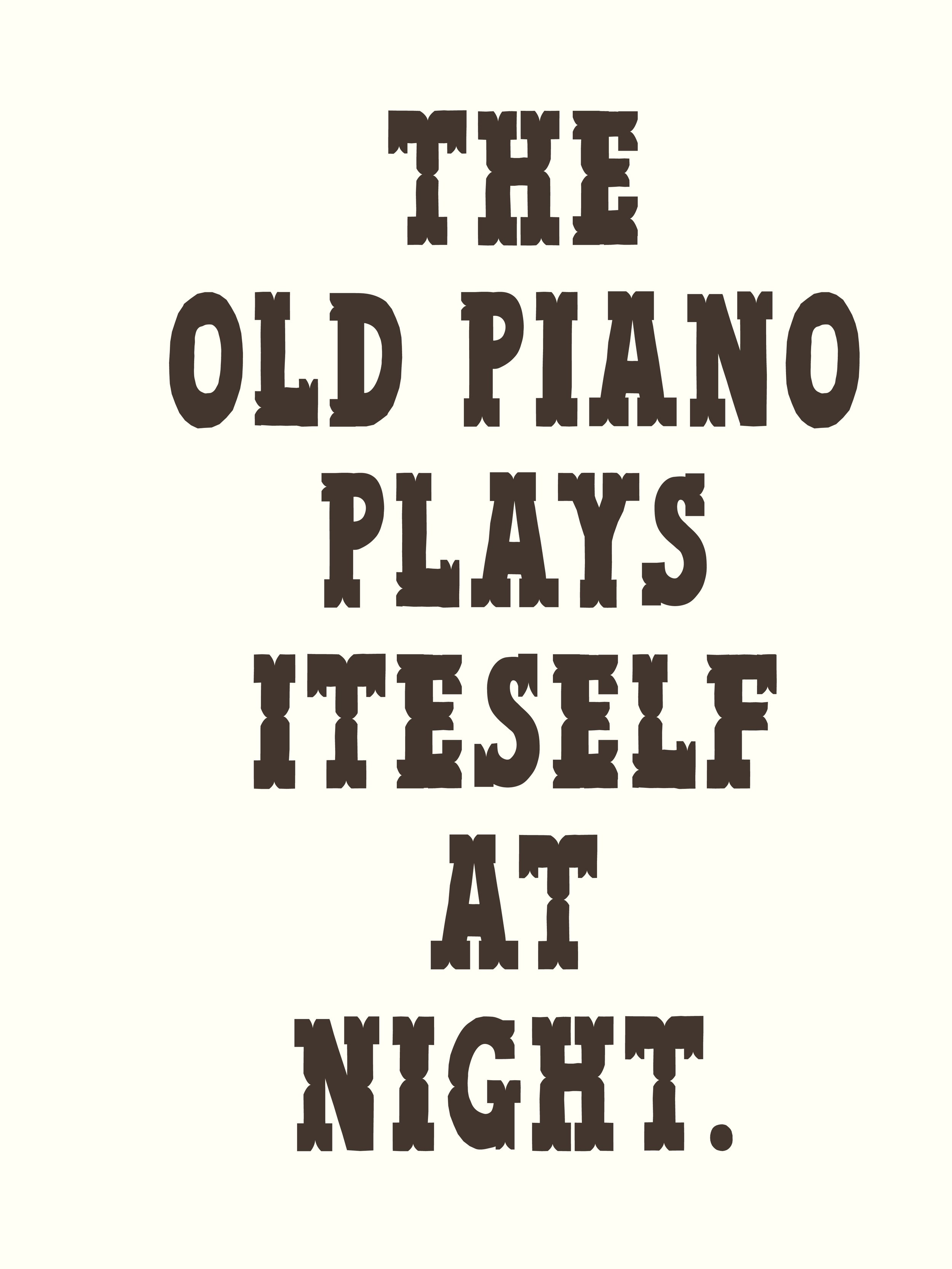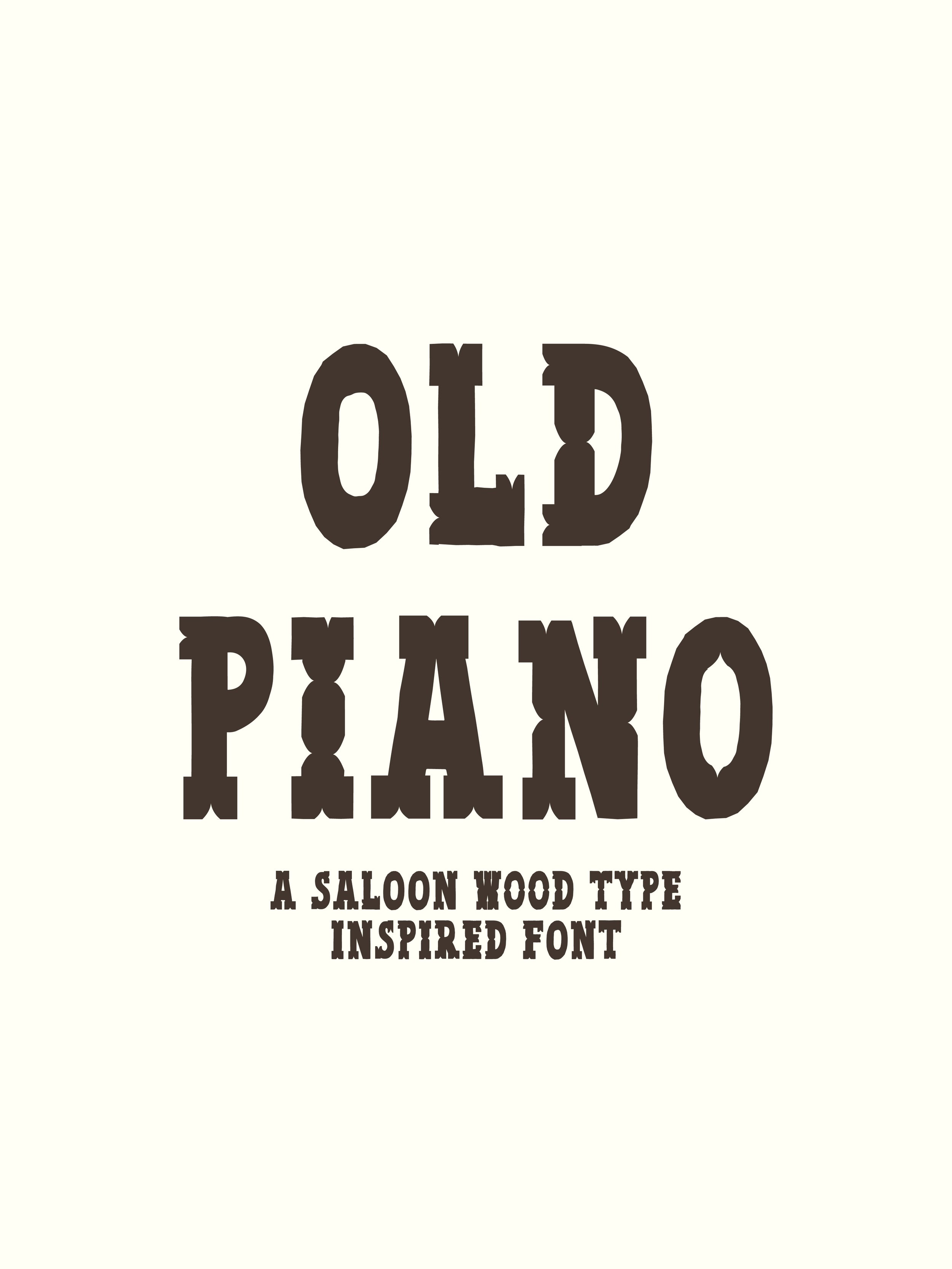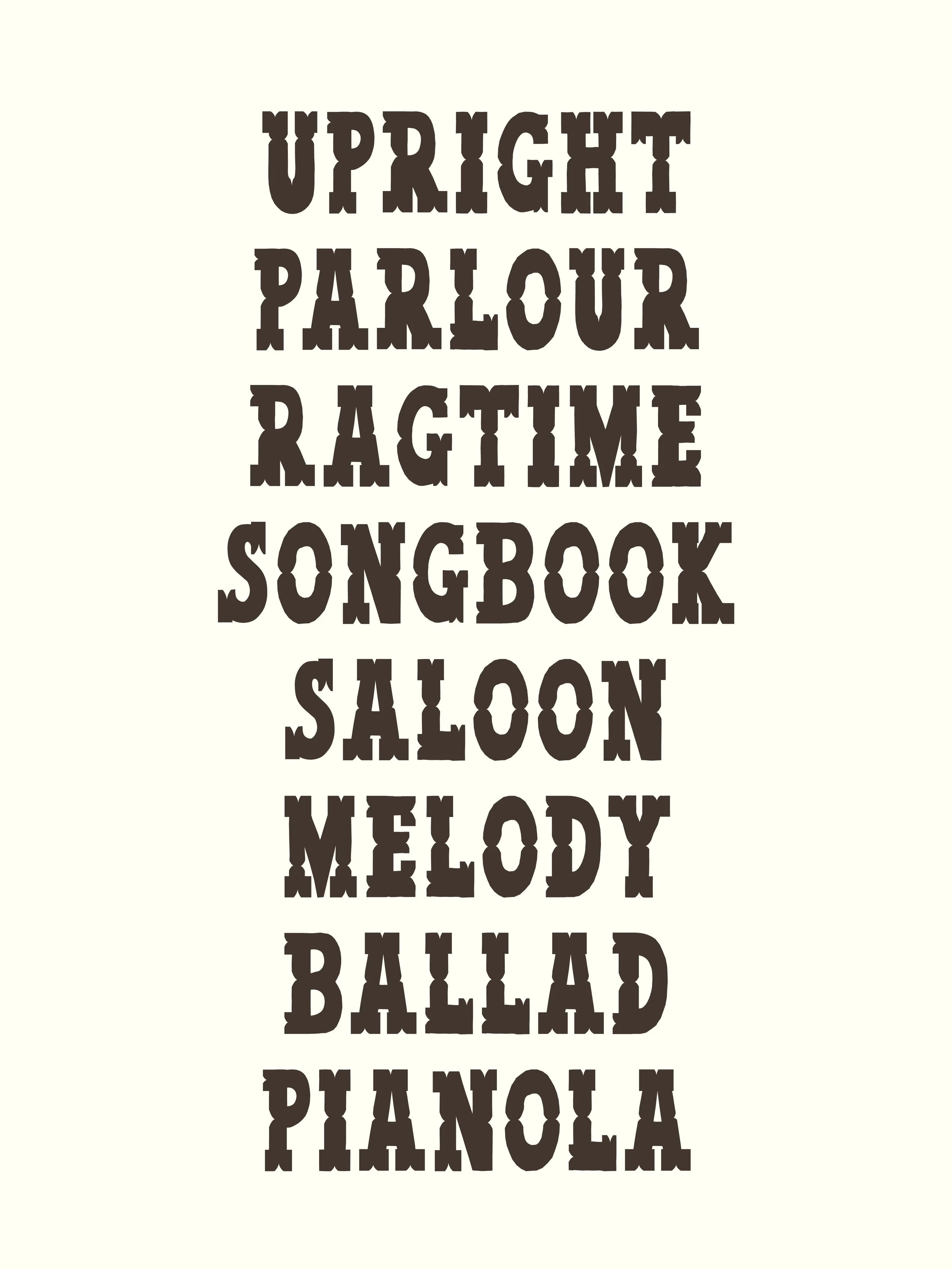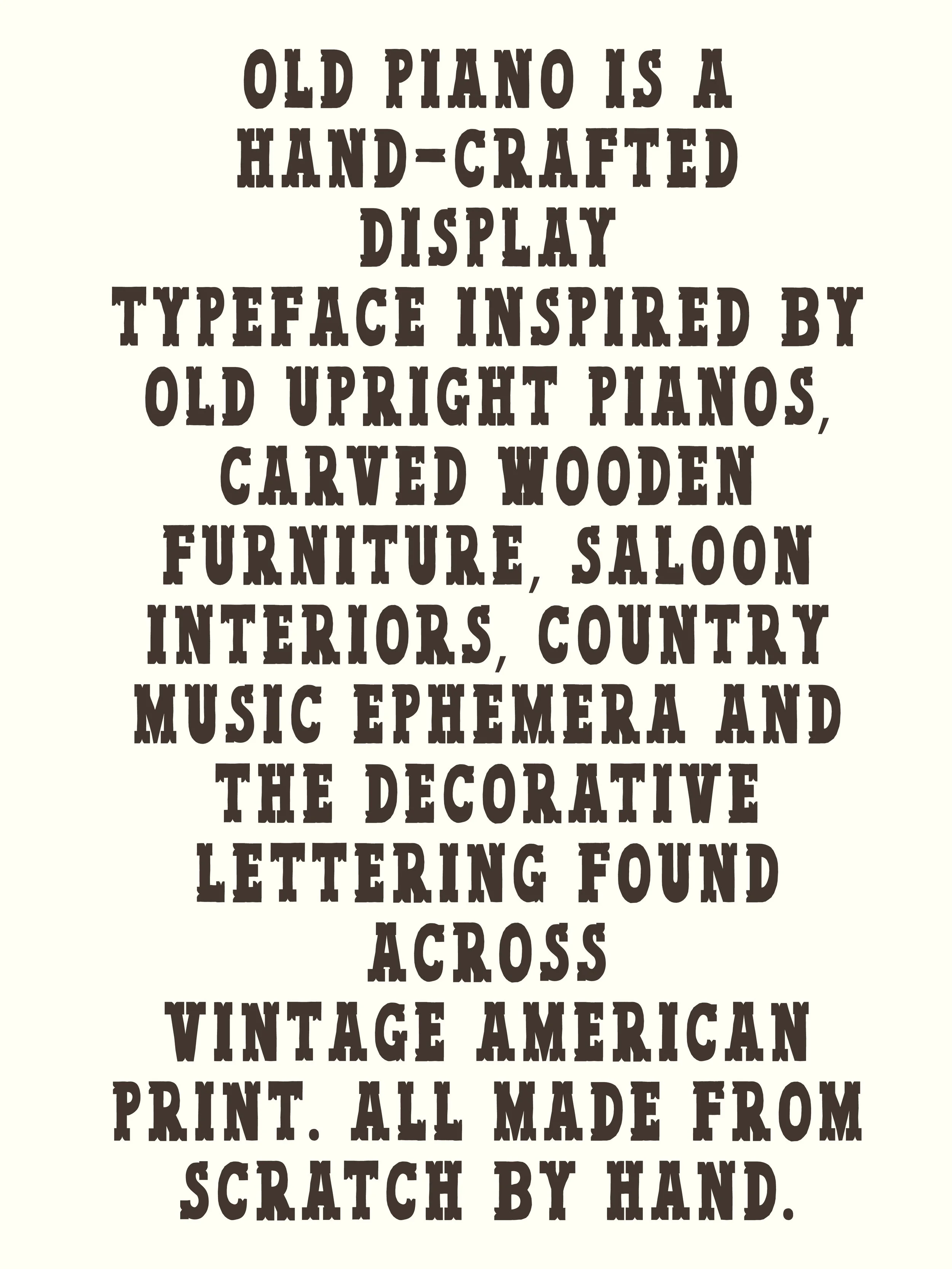
Old Piano | Hand Made Font
Old Piano is a hand-crafted display typeface inspired by old upright pianos, carved wooden furniture, saloon interiors, country music ephemera and the decorative lettering found across vintage American print. All made from scratch by hand.
Old Piano is the sister typeface to Showbill, developed from the same underlying hand-drawn letter skeleton. Where Showbill is squat, theatrical and decorated with stars, Old Piano stretches those familiar forms into taller, leaner proportions, strips away the spectacle and lets the strange carved construction of the letters take centre stage.
The result feels a little like an old upright piano sitting in the corner of a saloon or parlour — heavy wooden feet, turned details, carved edges and slightly mismatched parts that have accumulated character over time.
Heavy slabs sit alongside narrow bodies, bulbous curves, pinched waists, oversized feet and unusual little notches. Some characters feel architectural, others more like pieces of furniture. The differences are intentional. Rather than smoothing everything into a perfectly consistent digital alphabet, Old Piano keeps the awkwardness and irregularity of its hand-drawn beginnings.
Because Old Piano and Showbill share the same basic skeleton, the two typefaces are designed to feel naturally related. Use Old Piano on its own, or pair it with Showbill when you want to move between simpler typography and something more decorative while keeping the same underlying character.
Think of them as two pieces from the same room: Showbill is the handbill announcing tonight’s entertainment; Old Piano is the carved upright sitting inside.
This is an experimental display font made to be played with — tall, imperfect, nostalgic, sturdy and just a little strange.
Three complete sets of A–Z letterforms — Lowercase, Uppercase & Uppercase Alternates — designed to be mixed and matched for natural variation.
Numbers 0–9
Very limited punctuation
Please note: Old Piano is an experimental display typeface intended primarily for headlines, titles, logos and short pieces of expressive typography rather than long passages of text.
Old Piano is a sister typeface to Showbill and intentionally shares the same underlying hand-drawn letter skeleton. The proportions and overall treatment have been reworked into a taller, leaner and more pared-back style. If you already own Showbill, you may recognise that shared DNA — the two fonts can be used independently or together as companion faces.